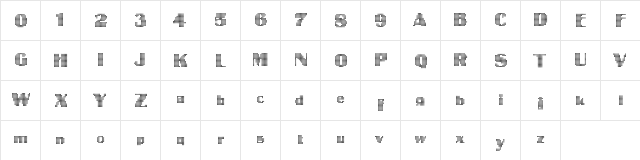
Intellecta Digital Regular
Design Context for Intellecta Digital Typeface
Intellecta Digital has a distinctly futuristic character, with geometric precision and clean angles that feel at home in technology, gaming, and sci-fi contexts.